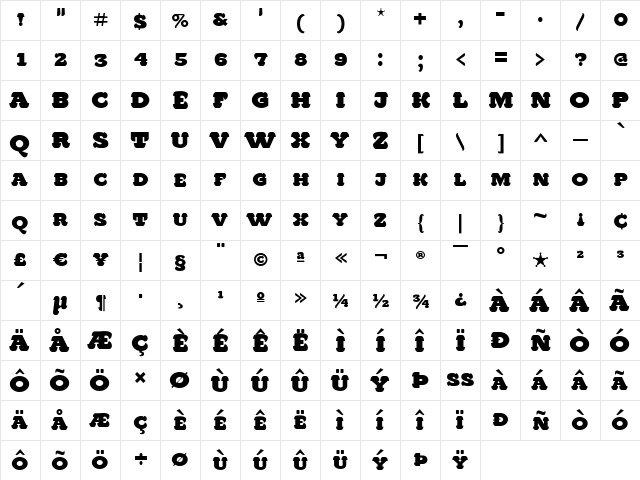
ManifestDestiny SmallCaps Regular
| Foundry | Jack Usine, SMeltery Fonts |
| Designer | Jack Usine |
Design Context for ManifestDestiny SmallCaps Typeface
ManifestDestiny SmallCaps takes a measured approach to typography — its balanced proportions and neutral character make it a reliable workhorse for both digital and print work.